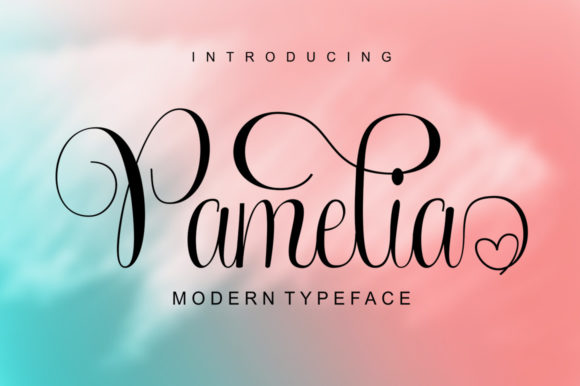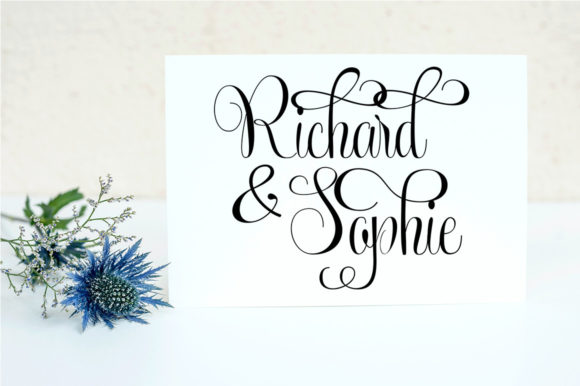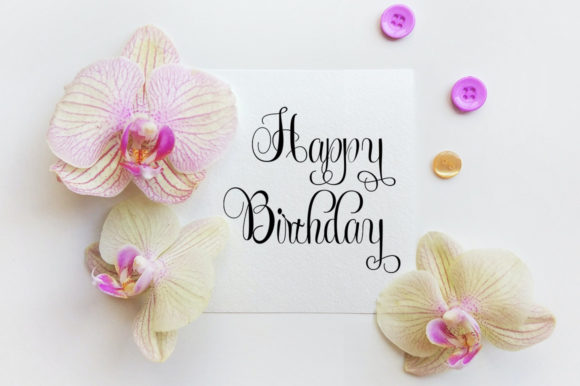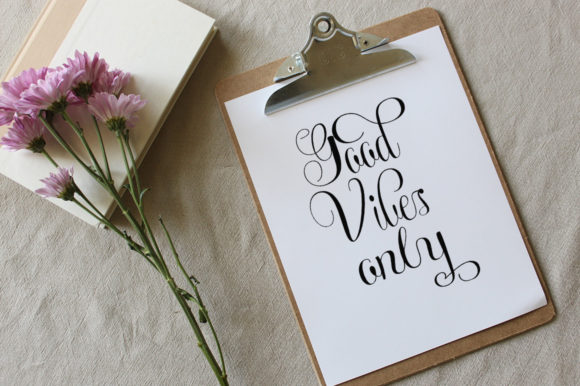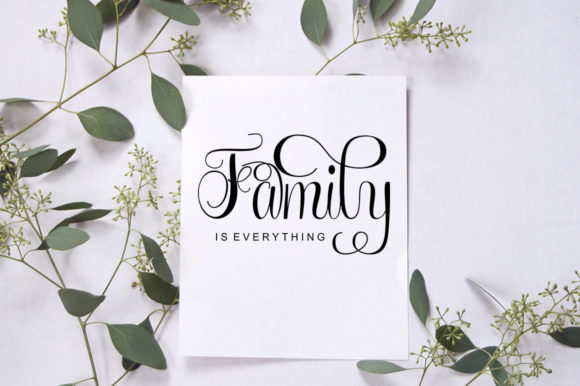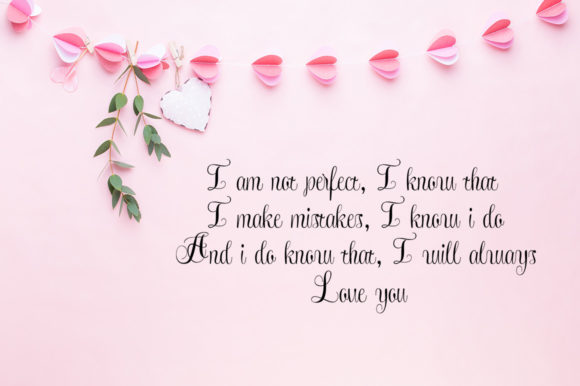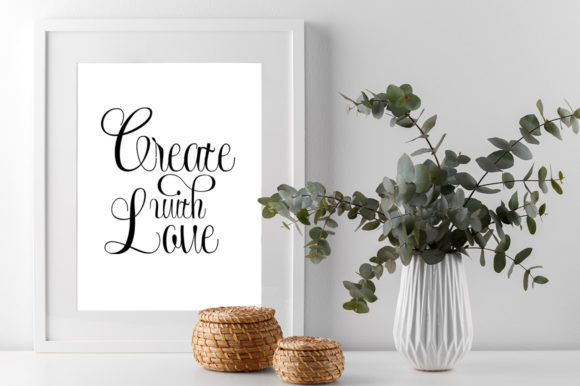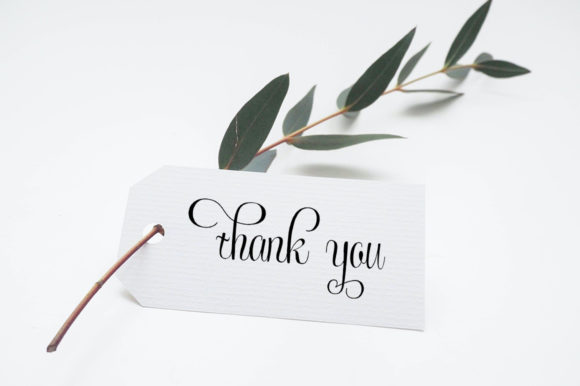
Pamelia Font
About Pamelia Font
Pamelia is a sophisticated and elegant script font that exudes a sleek and refined vibe. Its clean and well-balanced letterforms make it a perfect choice for a variety of designs, especially those that require a customized and personalized touch.
Whether you’re working on wedding invitations, thank you cards, quotes, greeting cards, logos, or business cards, Pamelia will add a touch of class and sophistication to your designs. Its sleek and refined style elevates any project, giving it a polished and professional appearance.
One of the standout features of Pamelia is its extensive glyph and swash collection, which is easily accessible thanks to its PUA encoding. This allows you to effortlessly access all the decorative glyphs, alternate characters, and swashes that come with the font. These additional elements provide you with endless opportunities to customize and enhance your designs, adding a unique and personalized touch.
With Pamelia, you can create stunning and eye-catching designs that leave a lasting impression. Its elegant and refined aesthetic lends itself well to a wide range of applications, from formal and corporate designs to more creative and artistic projects.
So, unleash your creativity and take advantage of Pamelia’s sleek and refined style. Explore its vast collection of glyphs and swashes to create customized and captivating designs that truly stand out.